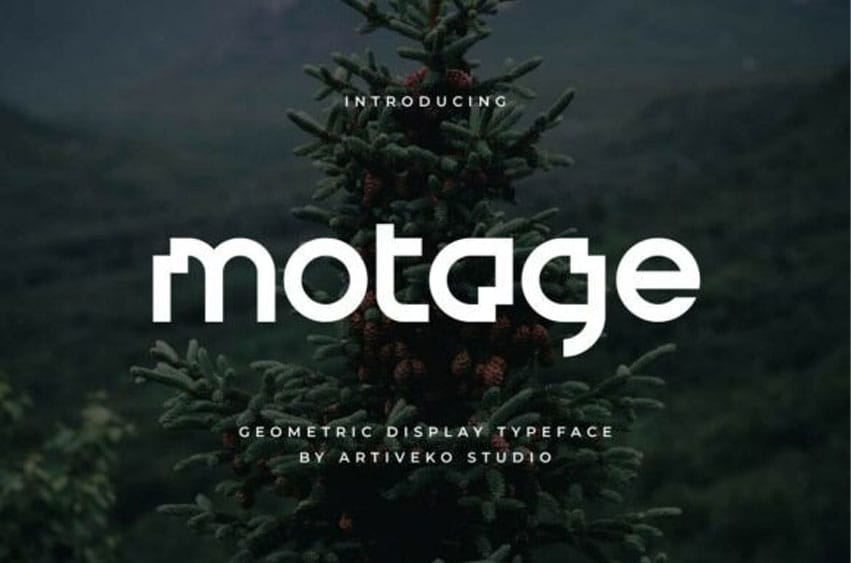
Motage Font is a geometric logo sans serif typeface designed to deliver precision, clarity, and modern brand appeal.
Built with clean geometry, balanced proportions, and refined letterforms, Motage creates a professional and memorable visual identity for contemporary businesses and creative brands.